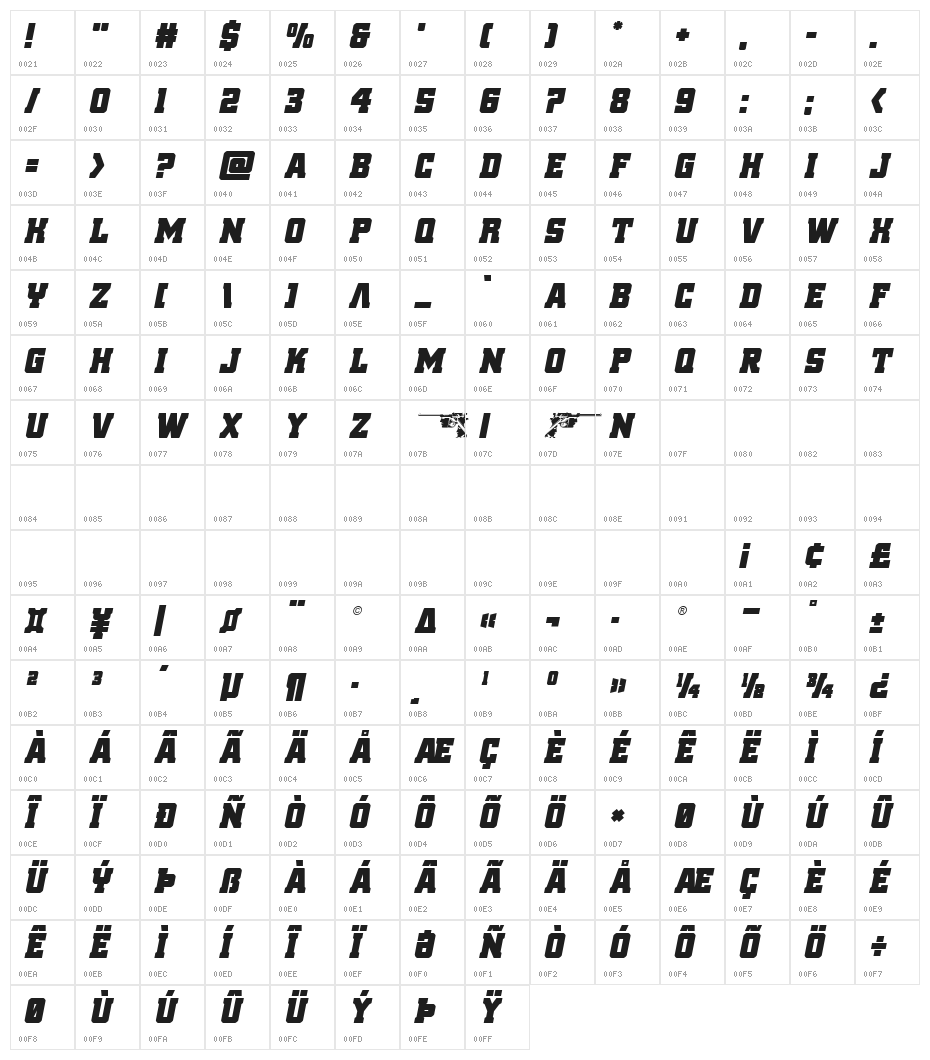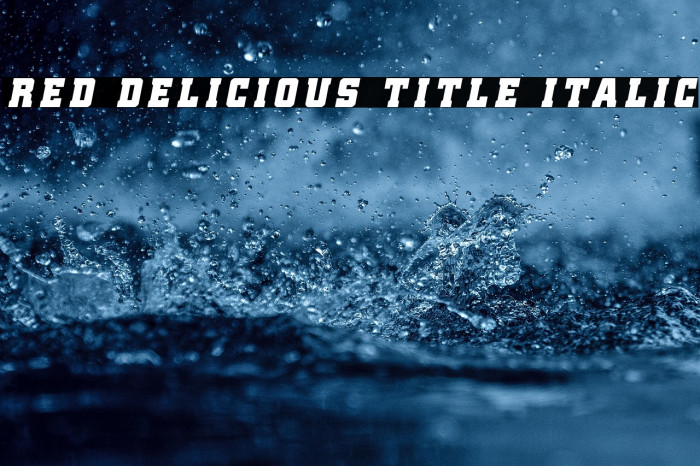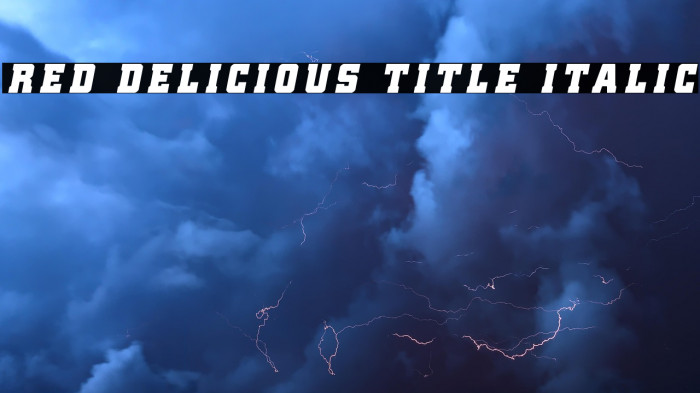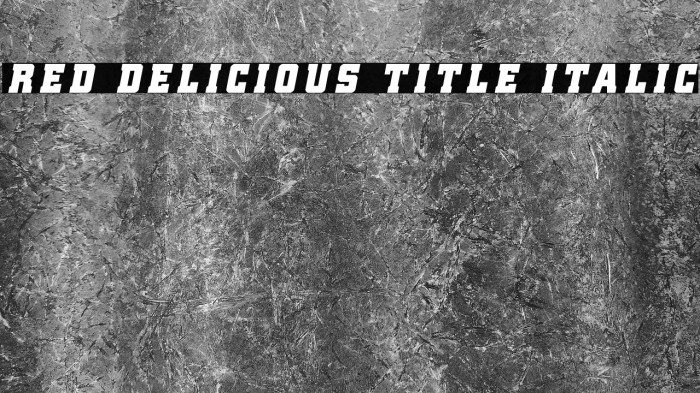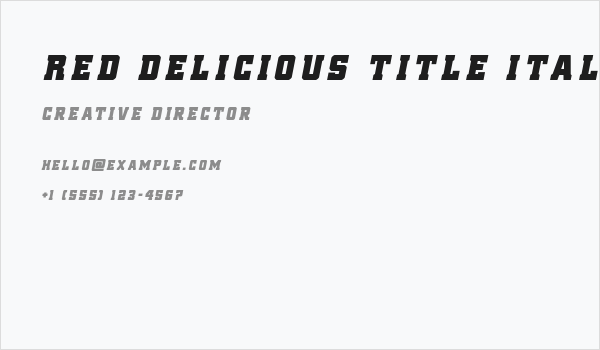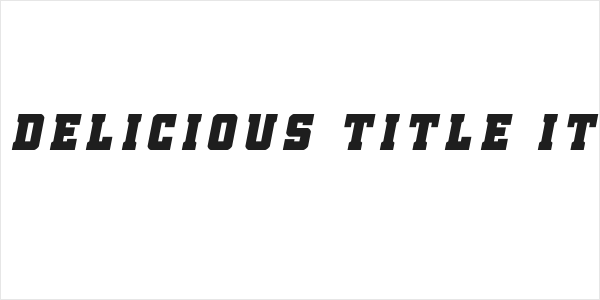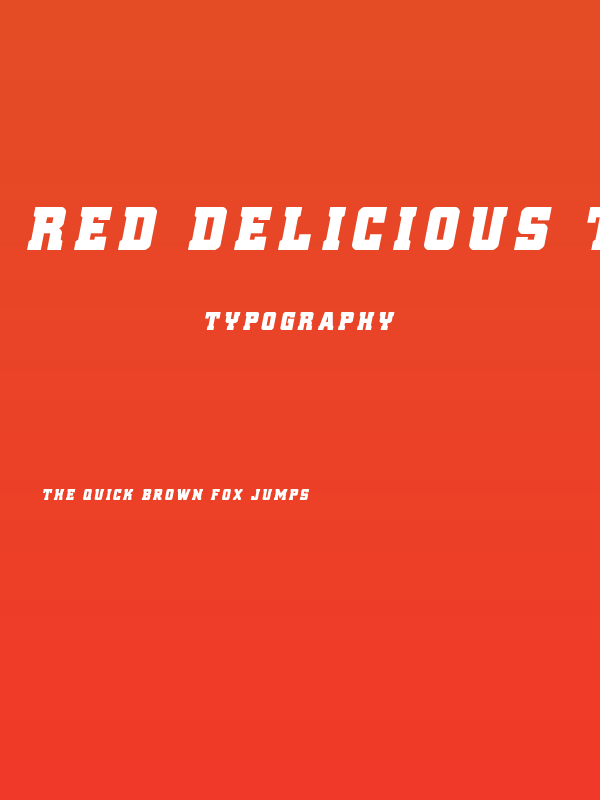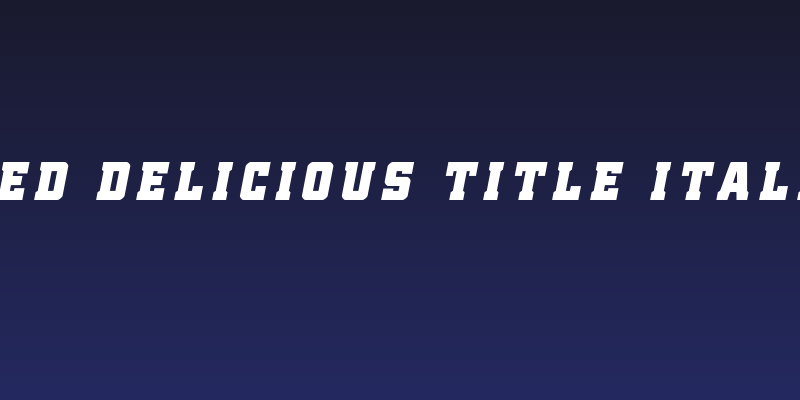
Red Delicious Title Italic Font
Red Delicious Title Italic Description
This font features a bold and dynamic style with a strong presence. The characters are italicized, giving them a forward-leaning, energetic appearance. The strokes are thick and consistent, providing a robust and impactful look. The uppercase and lowercase letters maintain a uniform width, enhancing readability while retaining a distinctive flair. The numbers and special characters are crafted with the same boldness, ensuring a cohesive design throughout. This font's unique style makes it suitable for projects that require a strong visual impact.
| Proposed Projects | Ideal for sports branding, poster headlines, and dynamic advertising campaigns. |